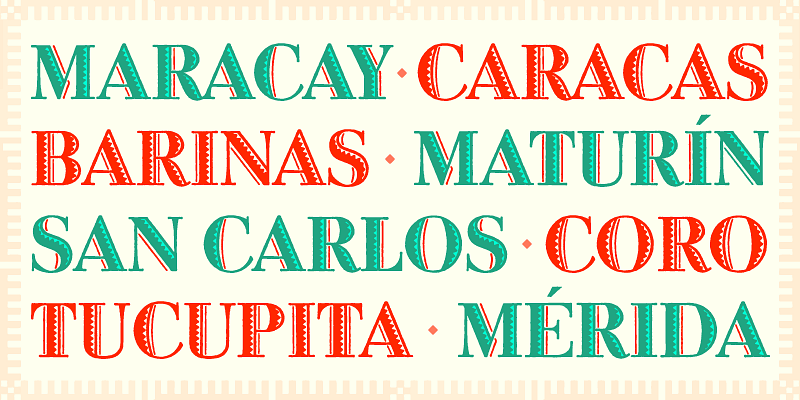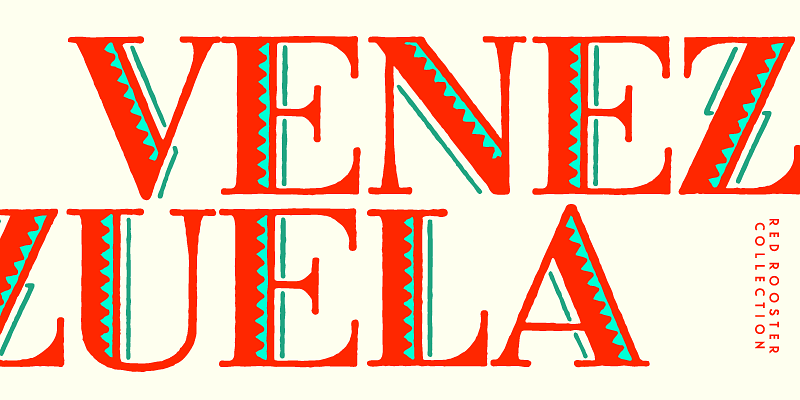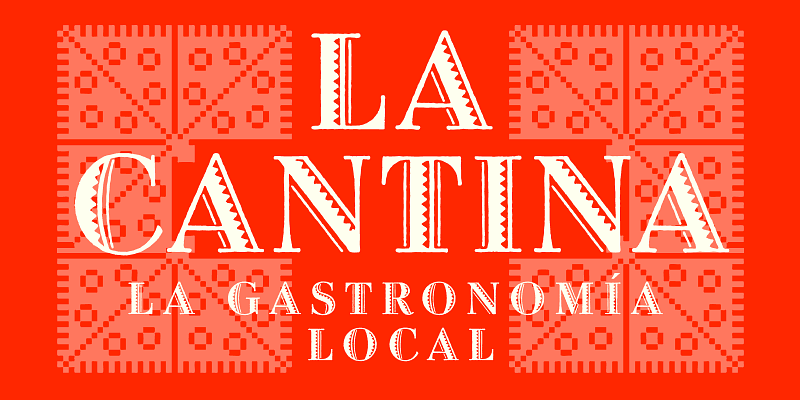
Venezuela is a decorative serif font family. The design is based on the typeface by Albert Augspurg of Lettergieterij Amsterdam circa 1936. The initial digitization was done by Paul Hickson, and Steve Jackaman produced its commercial version in 1993. Venezuela is bold and exotic, and it is excellent for display sizes. Consider it perfect for food packaging, fashion labels, movie posters, and travel books. Don’t miss the opportunity to color the shading and give it added drama and depth!